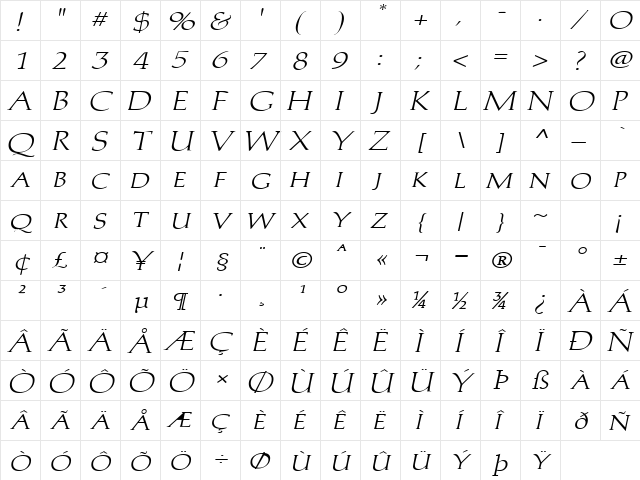
Trajan'sCapsExtended Italic
Design Context for Trajan'sCapsExtended Typeface
Trajan'sCapsExtended is a composed and adaptable typeface that performs quietly and consistently across a wide range of design contexts. The dynamic lean of this cut emphasises speed and emphasis in any layout.
Pro Tip: Try Trajan'sCapsExtended for annotation and caption copy alongside an upright companion — the contrast in angle creates a dynamic but ordered typographic system.